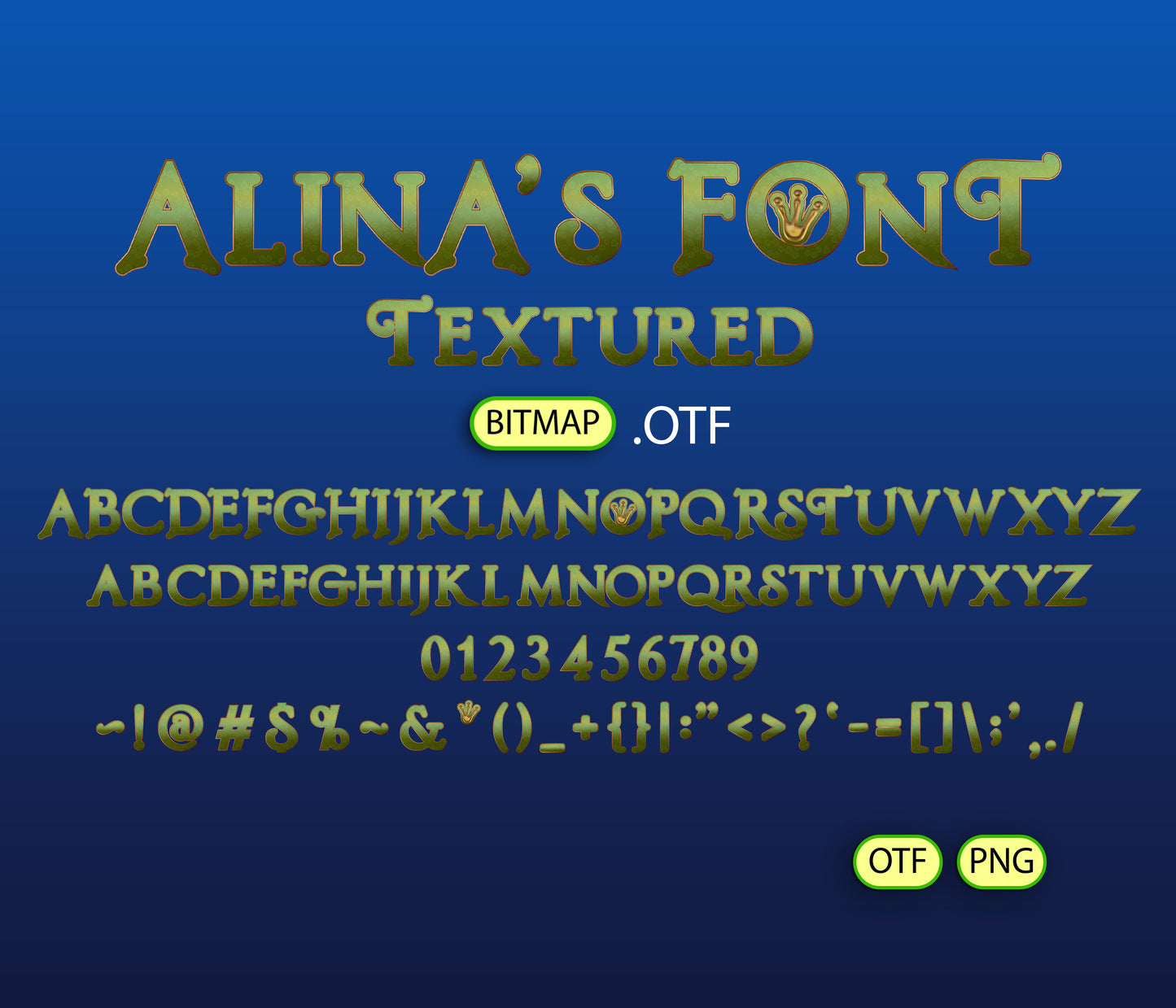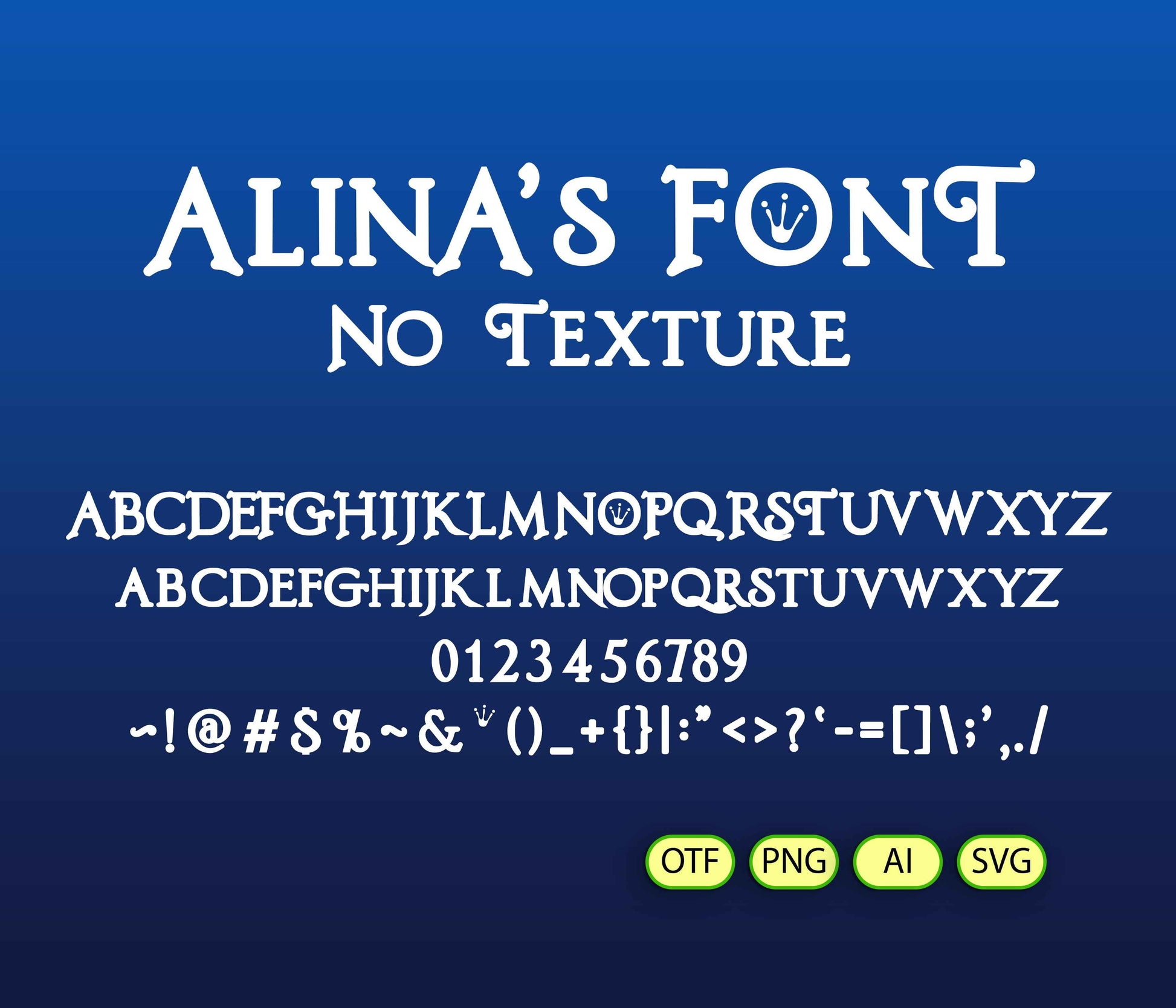
N'Orleans Dream Font Textured
Welcome to the enchanting world of a jazz-age fairy tale, where dreams take flight on the vibrant wings of New Orleans' Jazz Age. Our specially crafted font, inspired by a beloved animated musical, embodies the heart and soul of a determined young woman's magical journey. Just as her passion led her through a story of love, friendship, and self-discovery, this font captures the essence of her dream, transforming every word into a piece of that wondrous adventure.
What font is the N'Orleans Dream movie font?
It's not just a set of characters; it's a narrative in itself. Crafted with meticulous attention to detail, this font echoes the hand-drawn and computer-generated animation techniques that brought a vibrant New Orleans to life.
What You Can Do With N'Orleans Dream movie font?
This font package is a treasure trove of features. It comes with textured and colored variants, echoing the diverse and vibrant New Orleans backdrop. For those seeking a more universal application, a FREE no-texture version is also included, ensuring compatibility with all software, including cutting machines like Cricut. This bonus standard version, provided at no extra charge, is perfect for DIY enthusiasts and crafters, adding more charm to your creative projects.